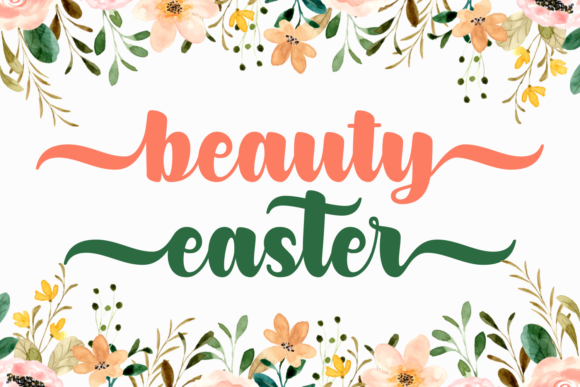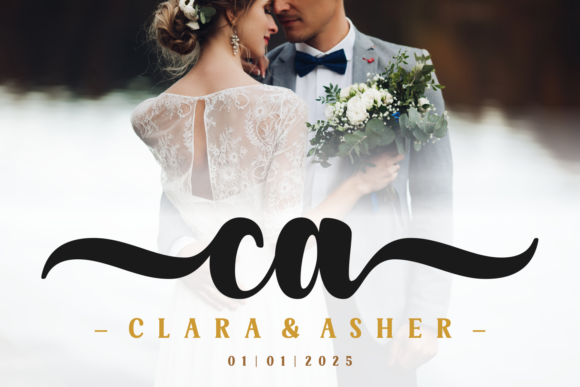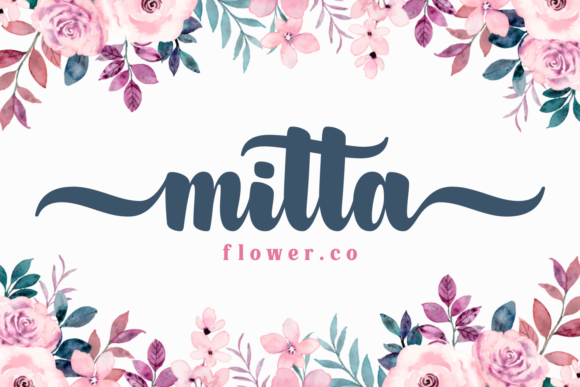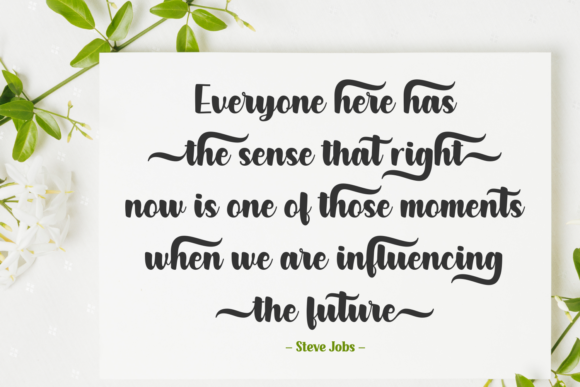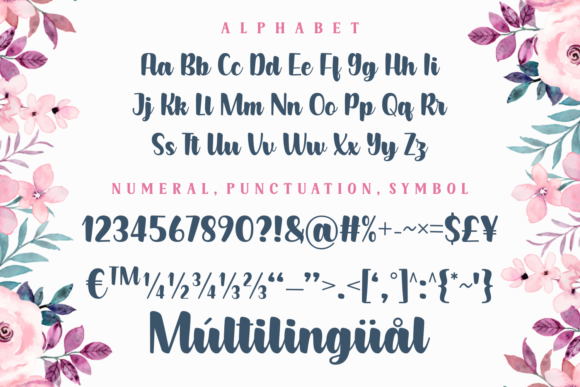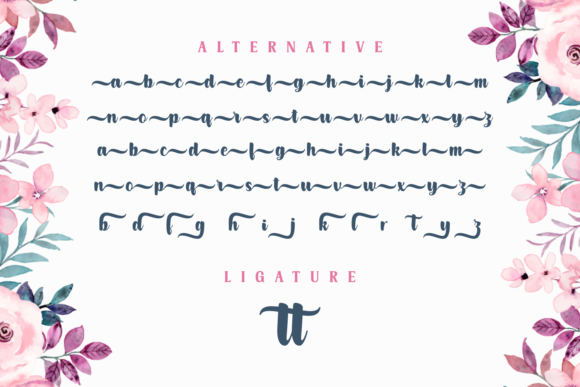
Elya Font: Elevate Your Designs with Elegance and Sophistication
Are you searching for a stunning display font to make your wedding invitations, posters, or personal branding stand out? Look no further than Elya Font, a gorgeous display font that exudes elegance and sophistication. With its beautiful ligatures and alternatives, Elya is the perfect choice for designers and crafters looking to add a touch of modernity to their creations.
What is Elya Font?
Elya Font is a modern display font designed to make a statement. Its elegant ligatures and alternatives give it a unique and sophisticated look that’s perfect for a variety of design projects. Whether you’re creating wedding invitations, posters, quotes, or personal branding materials, Elya Font is sure to impress.
Key Features of Elya Font
- Elegant Ligatures: Elya Font features beautiful ligatures that add a touch of sophistication to any design.
- Modern Alternatives: The font comes with modern alternatives that allow you to experiment with different styles and create unique designs.
- Display Font: Elya Font is specifically designed as a display font, making it perfect for headlines, titles, and other prominent text elements.
- Multipurpose: The font can be used for a variety of design projects, including wedding invitations, posters, quotes, cards, texts, and personal branding.
Why Choose Elya Font?
There are many reasons why Elya Font is an excellent choice for designers and crafters. Here are a few:
- Unique and Eye-Catching: Elya Font’s elegant ligatures and modern alternatives make it a unique and eye-catching choice for any design project.
- Easy to Read: Despite its ornate appearance, Elya Font is easy to read, making it perfect for body text as well as headlines.
- Highly Versatile: The font can be used for a wide range of design projects, from wedding invitations to posters and personal branding.
- Modern and Sophisticated: Elya Font’s modern design and sophisticated look make it perfect for designers and crafters who want to create elegant and refined designs.
How to Use Elya Font in Your Designs
Using Elya Font in your designs is easy. Here are a few tips to get you started:
- Pair it with a Simple Font: Pair Elya Font with a simple font for body text to create a beautiful contrast.
- Experiment with Ligatures: Take advantage of Elya Font’s elegant ligatures to add a touch of sophistication to your designs.
- Use it for Headlines: Elya Font is perfect for headlines and titles, where its elegant and modern design can shine.
- Add a Personal Touch: Use Elya Font to add a personal touch to your designs, whether it’s a wedding invitation or a personal branding project.
Elya Font is a stunning display font that’s perfect for designers and crafters looking to add a touch of elegance and sophistication to their designs. With its beautiful ligatures and modern alternatives, Elya is highly versatile and can be used for a wide range of design projects. Whether you’re creating wedding invitations, posters, or personal branding materials, Elya Font is sure to impress.